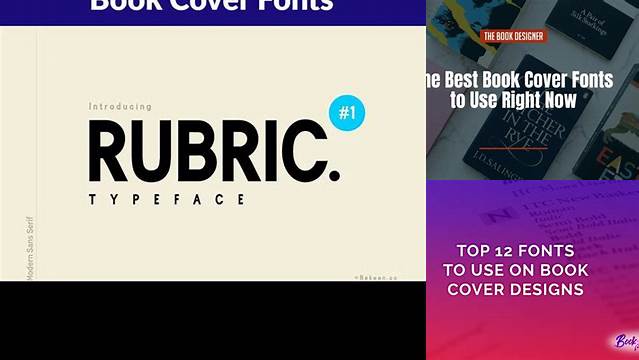
Best Book Cover Fonts: Make Your Book Stand Out
Choosing the right font for your book cover is crucial. It's the first thing potential readers see, and it plays a huge role in conveying your book's genre, tone, and overall message. Think of it like this, guys: a thriller novel wouldn't look quite right with a bubbly, cartoonish font, would it? So, let's dive into the wonderful world of book cover fonts and how to pick the perfect one for your masterpiece.
1. Understanding the Importance of Book Cover Typography
Book cover typography isn't just about picking a pretty font; it's about creating a visual hierarchy, communicating the genre, and making a lasting impression. The font you choose sets the tone for your book. Is it serious and scholarly? Fun and whimsical? Dark and mysterious? The typography needs to reflect that. A well-chosen font can draw readers in, while a poorly chosen one can send the wrong message and even deter potential buyers. Think of your book cover as a tiny billboard; the typography needs to be clear, legible, and eye-catching, even at a glance. It's about more than just aesthetics; it's about marketing your book effectively. So, let's explore how different fonts can help you achieve these goals.
2. Serif Fonts for Book Covers: Classics with Character
Serif fonts, with their small strokes or “feet” at the end of each letter, are often associated with tradition, elegance, and readability. These fonts are your classic choices, perfect for genres like historical fiction, literary fiction, and non-fiction. Think of Times New Roman, Garamond, or Caslon – these are fonts that have stood the test of time for a reason. They exude a sense of authority and trustworthiness, making them ideal for books that require a touch of sophistication. However, don't think serif fonts are boring! There's a wide variety of serif fonts, from the delicate and refined to the bold and impactful. Experiment with different styles to find the perfect match for your book's specific tone and subject matter. The right serif font can elevate your book cover from ordinary to extraordinary, giving it a timeless appeal that readers will appreciate.
3. Sans-Serif Fonts: Modern and Minimalist Appeal
Sans-serif fonts, lacking the serifs found in their counterparts, offer a cleaner, more modern look. These fonts are often associated with contemporary fiction, thrillers, and science fiction. They have a sleek, minimalist aesthetic that conveys a sense of clarity and straightforwardness. Think Helvetica, Arial, or Futura – these are fonts that are instantly recognizable for their clean lines and readability. Sans-serif fonts can be particularly effective for titles that need to stand out, as their simplicity allows them to be easily legible even in smaller sizes. However, it's important to choose a sans-serif font that doesn't feel too generic. Look for fonts with subtle variations in weight and spacing to add character and prevent your cover from looking bland. The key is to find a balance between modernity and visual interest, ensuring your cover is both eye-catching and easy to read.
4. Script Fonts: Elegance and Personality
Script fonts, mimicking the look of handwriting, can add a touch of elegance and personality to your book cover. These fonts are often used for romance novels, historical fiction, and memoirs, where a personal or intimate feel is desired. Think calligraphy-inspired fonts or those that resemble elegant cursive. However, script fonts can be tricky to use. They can be difficult to read if used in large blocks of text or if the font itself is too ornate. It's crucial to use script fonts sparingly and strategically, often for the title only, pairing them with a simpler font for the author's name and other text. The key is legibility. Choose a script font that is beautiful but also easy to decipher at a glance. When used correctly, script fonts can add a unique and sophisticated touch to your cover, conveying a sense of artistry and craftsmanship.
5. Decorative Fonts: When to Use Them (and When to Avoid)
Decorative fonts are the wildcards of the typography world. They come in a vast array of styles, from whimsical and playful to dark and gothic. These fonts can be incredibly effective for specific genres, such as fantasy, horror, or children's books, where a unique and stylized look is desired. However, decorative fonts should be used with caution. They can easily overpower a cover if not used sparingly and with purpose. The key is to ensure that the font is still legible and that it aligns with the overall tone of your book. Avoid using decorative fonts for large blocks of text, as they can be difficult to read. Instead, use them for the title or a key element of the cover design, pairing them with a simpler font for the rest of the text. When used correctly, decorative fonts can add a memorable and eye-catching element to your cover, but it's crucial to prioritize clarity and readability.
6. Font Pairing: Creating Visual Harmony
Font pairing is the art of combining two or more fonts that complement each other visually. This is a crucial skill for creating a book cover that is both eye-catching and easy to read. The general rule of thumb is to pair a display font (used for the title) with a simpler font (used for the author's name and other text). A common approach is to pair a serif font with a sans-serif font, as the contrast between the two styles can create visual interest. However, it's important to ensure that the fonts work well together. Avoid pairing fonts that are too similar, as this can create a cluttered and confusing look. Instead, look for fonts that have contrasting characteristics but still share a similar tone or feel. Experiment with different combinations until you find a pairing that feels harmonious and reflects the overall message of your book.
7. Considering Genre Conventions: What Works for Your Audience
Genre conventions play a significant role in book cover design, and font choice is no exception. Different genres often have established typographic styles that readers have come to expect. For example, thrillers often use bold, sans-serif fonts to convey a sense of urgency and suspense, while romance novels might use elegant script fonts to evoke a feeling of romance and intimacy. While it's important to be creative and original, it's also crucial to be aware of these conventions. Ignoring them entirely can make your book feel out of place or even mislead potential readers about its content. Research covers in your genre to get a sense of what works well and what doesn't. This doesn't mean you have to copy existing designs, but it can provide valuable insights into the kinds of fonts that resonate with your target audience. By understanding genre conventions, you can make informed choices about your font selection and create a cover that appeals to the right readers.
8. Legibility is Key: Ensuring Readability at All Sizes
Legibility is paramount when choosing fonts for your book cover. No matter how beautiful a font is, if it's difficult to read, it won't serve its purpose. Remember, your cover needs to be legible not only in its full size but also as a thumbnail online. This means avoiding fonts that are too thin, too ornate, or have overly tight spacing. Test your font choices at different sizes to ensure they remain clear and readable. Consider how the font will look both on screen and in print. A font that looks great on your computer monitor might not translate well to a physical book cover. Pay attention to the contrast between the font and the background. A font that blends in with the background will be difficult to read, even if it's otherwise legible. By prioritizing legibility, you can ensure that your cover is effective in grabbing attention and conveying your book's message.
Choosing the right book cover fonts is a key ingredient in crafting a successful and eye-catching book cover. By carefully considering the various factors discussed above, guys, you can select fonts that not only enhance the visual appeal of your cover but also effectively communicate your book's message to potential readers. Remember, your book cover is your book's first impression, so make it count!